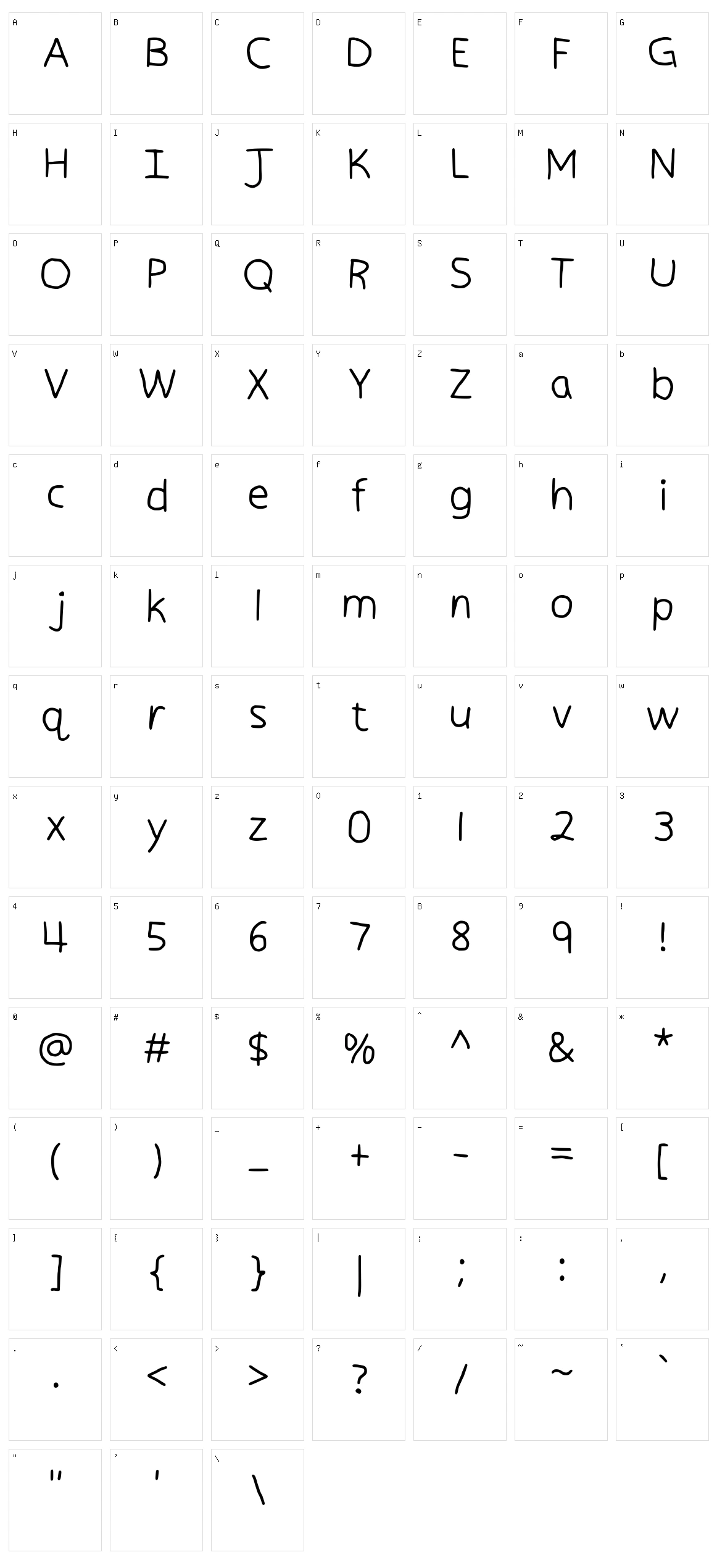
The free font Handwriting Main is carefully designed by Morgan Spohn, showcasing a thoughtful balance of creativity and usability and falls under the Script font style. When you download the ZIP file, it contains only 40.71 KB of font files, making it lightweight and quick to download. Please review the license details below to understand permitted usage and distribution rights. If license information is not available, we recommend using this font for personal projects only or contacting the author directly for commercial usage permissions.